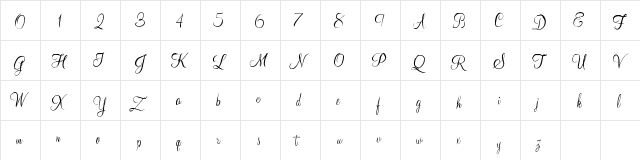
YoungRanger Regular
Design Context for YoungRanger Typeface
YoungRanger is a composed and adaptable typeface that performs quietly and consistently across a wide range of design contexts.